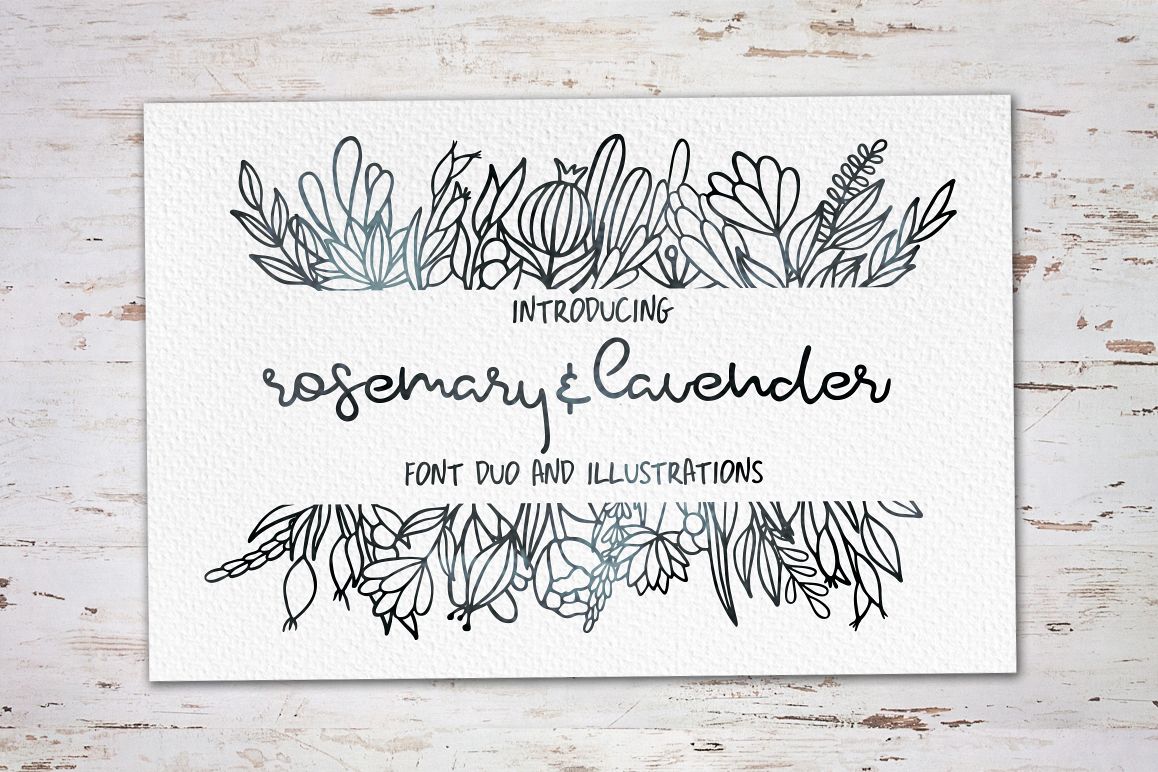
Rosemary & Lavender.Font duo+logos
Rosemary and lavender - it's a handwritten font duo and illustrations. Perfect for logos
With these elements you can create a huge number of logos for you and your customers?
These fonts have multilingual support ( ÀÁÂÃÄÅÆÇÈÉÊËÌÍÎÏÐÑÒÓÔÕÖØÙÚÛÜÝß ?????????????????????????????????????Œ??????Š????????? ??Ÿ??Ž)